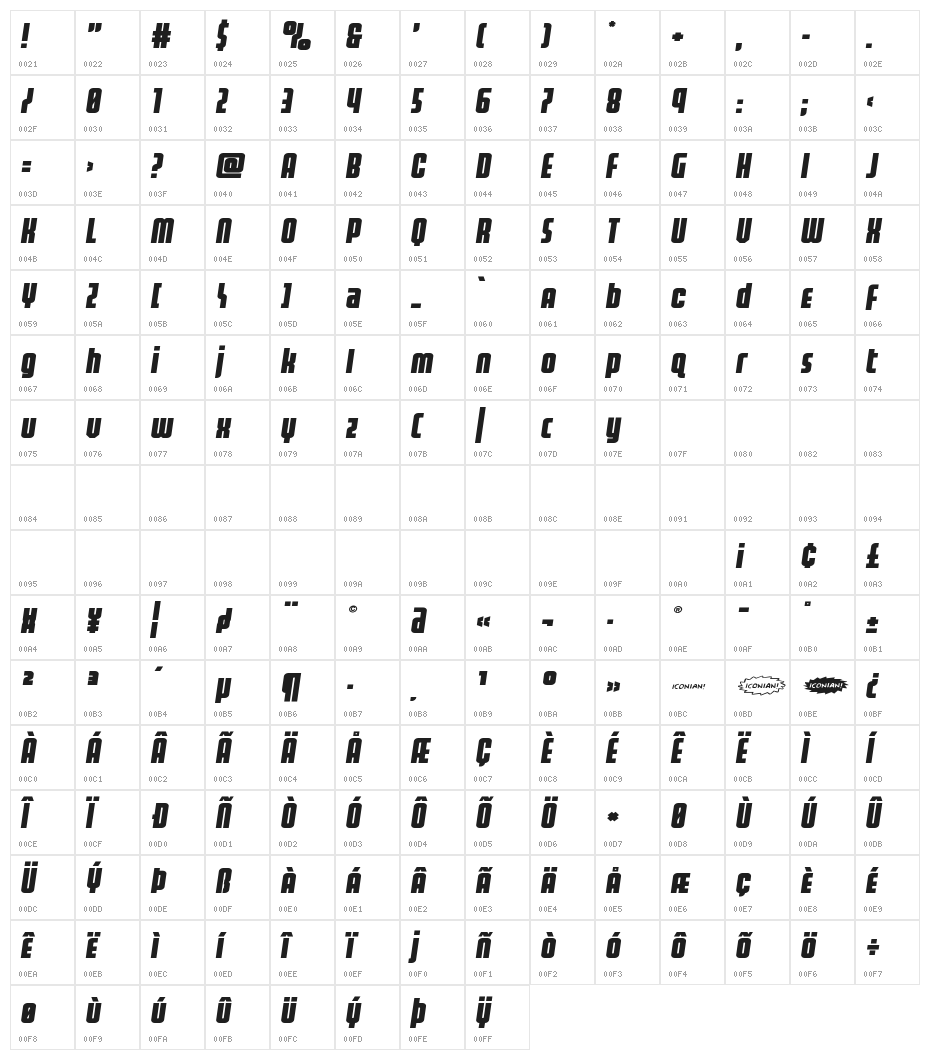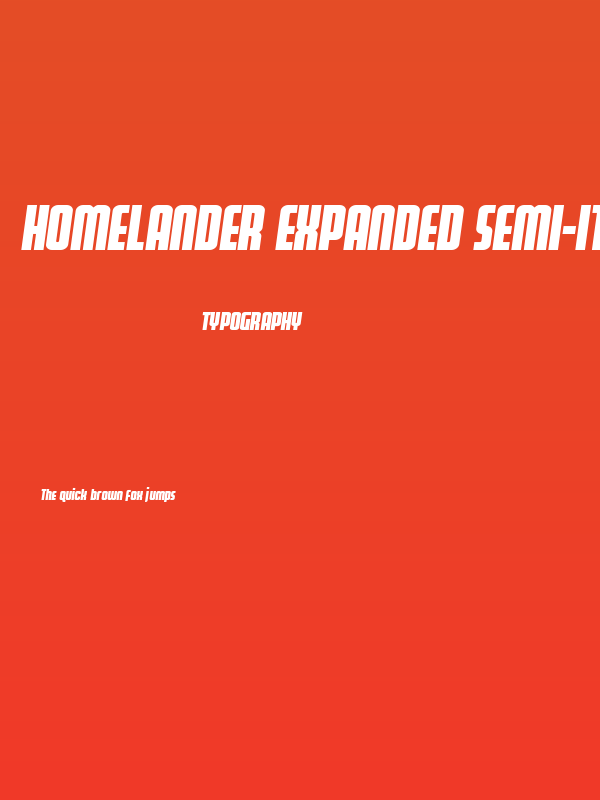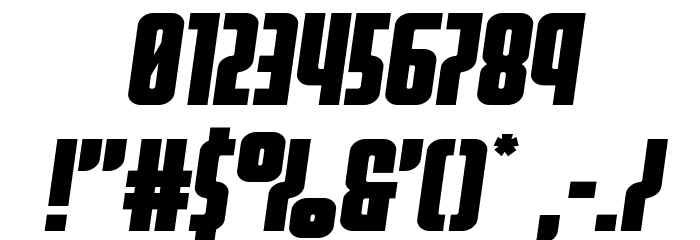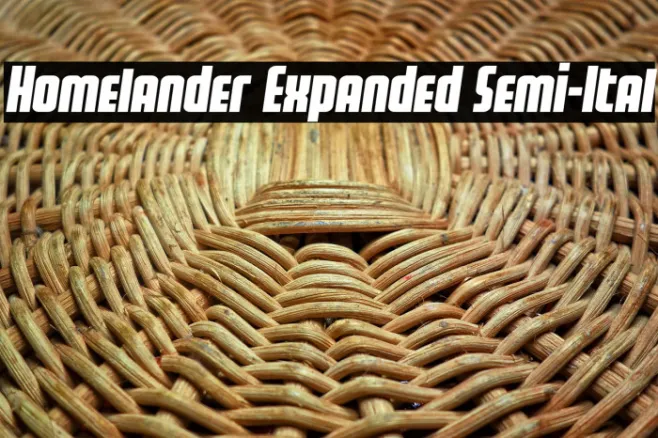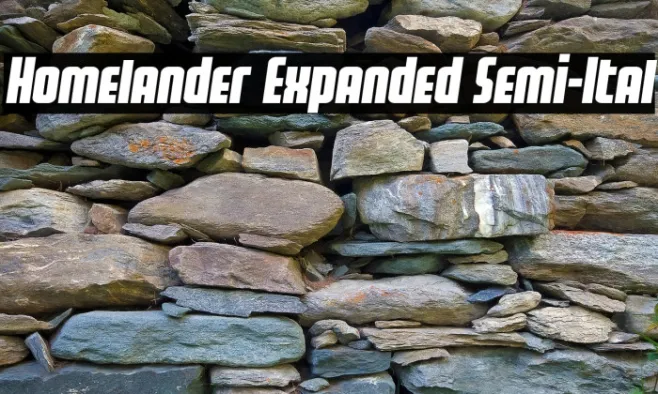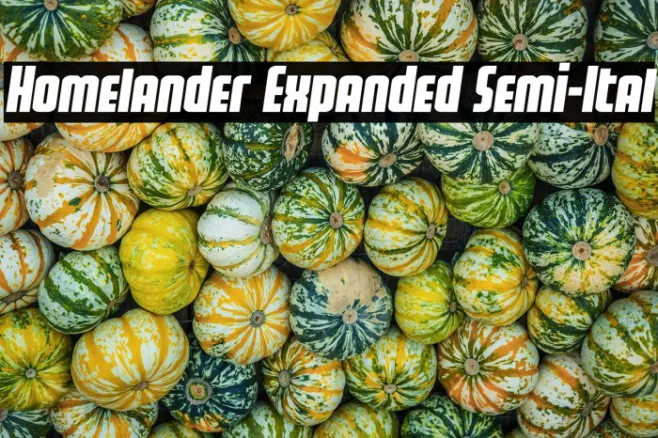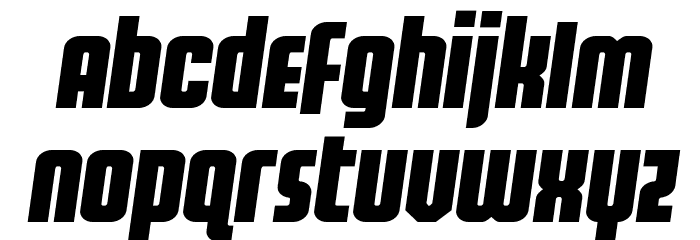
Homelander Expanded Semi-Ital Font
Homelander Expanded Semi-Ital Description
This font features a bold and dynamic style with an expanded width, giving it a strong presence. The semi-italic slant adds a sense of motion and energy, making it stand out. The characters are well-defined with a consistent stroke weight, providing a uniform appearance. The uppercase and lowercase letters maintain a cohesive look, while the numerals and special characters complement the overall design. This font's boldness and slight slant make it ideal for attention-grabbing headlines and impactful designs.